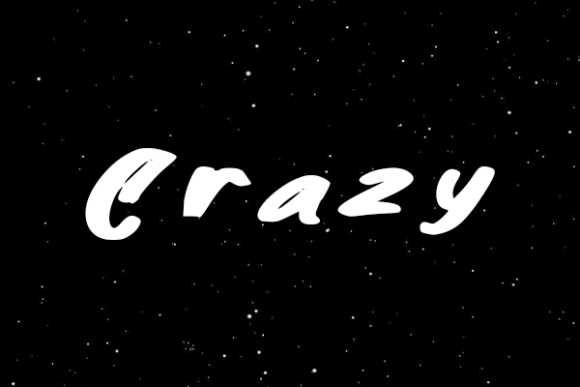
The Ultimate Guide to Crazy Font: Elevate Your Designs with a Unique Touch
I’ll never forget the time I was working on a logo design project for a trendy coffee shop. My client wanted something that would stand out on their social media profiles and merchandise. As I scrolled through font after font, nothing seemed quite right. That was until I stumbled upon Crazy Font. Its unique, hand-crafted style instantly caught my eye, and I knew I had found the perfect fit. In this article, I’ll share my experience with Crazy Font, its features, and how to make the most of it in your designs.
An Honest Review of Crazy Font
- ✨ Unique and beautiful touch to every letter
- ✅ Perfect for creating eye-catching logos, branding, and quotes
- 🎨 Highly versatile and can be used in various design projects
While Crazy Font is an excellent choice for many design projects, there are a few things to keep in mind:
- ⚠️ Limited use in formal or traditional designs, as it’s quite bold and playful
- 🤔 May require some experimentation to get the perfect look, especially when using OpenType features
The Story Behind Crazy Font
Crazy Font was designed by a team of creatives who wanted to push the boundaries of traditional typography. Inspired by the world of street art and graffiti, they set out to create a font that would be both bold and beautiful. The result is a unique and versatile font that’s perfect for designers, crafters, and creative hobbyists.
Q: What type of projects is Crazy Font best suited for?
A: Crazy Font is perfect for creating eye-catching logos, branding, and quotes. It’s also great for social media graphics, posters, and flyers.